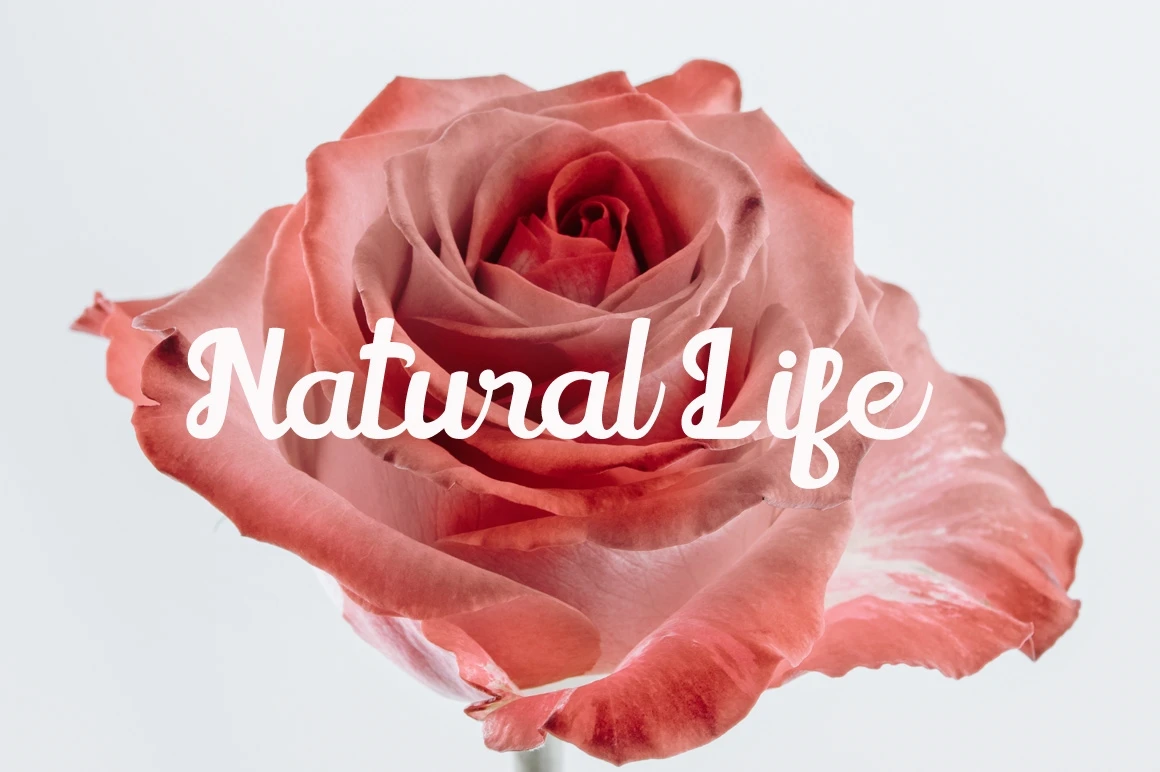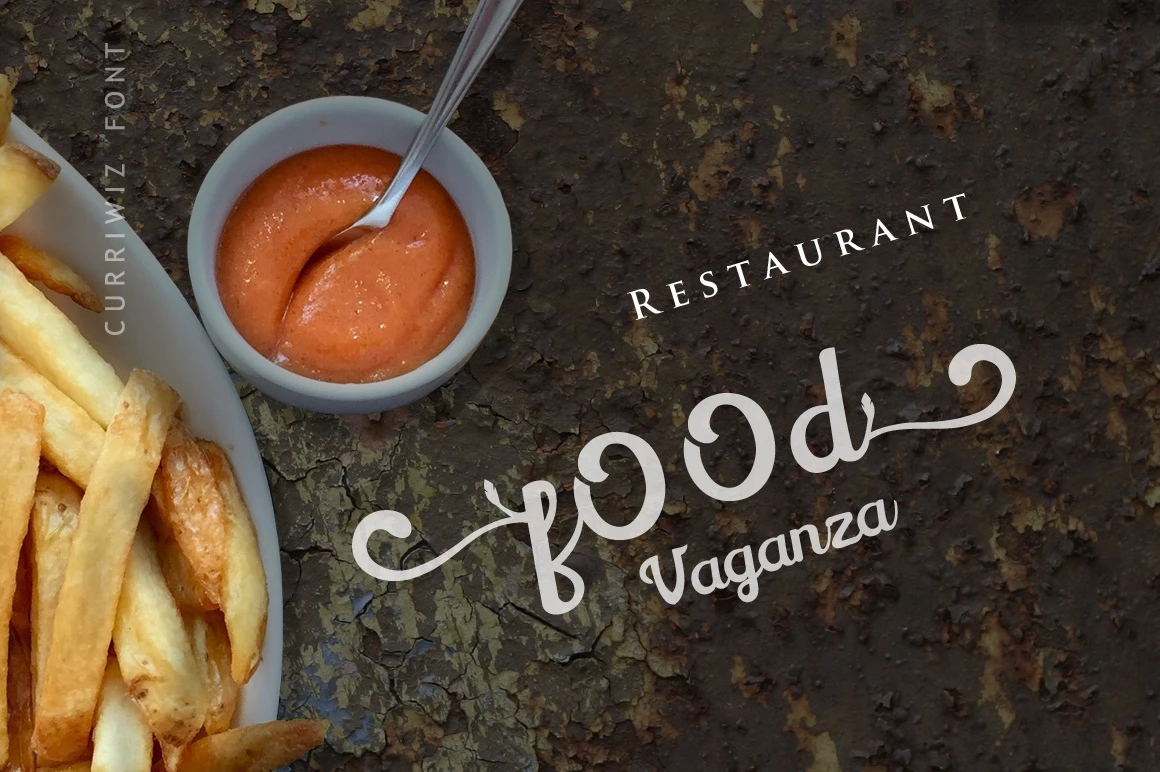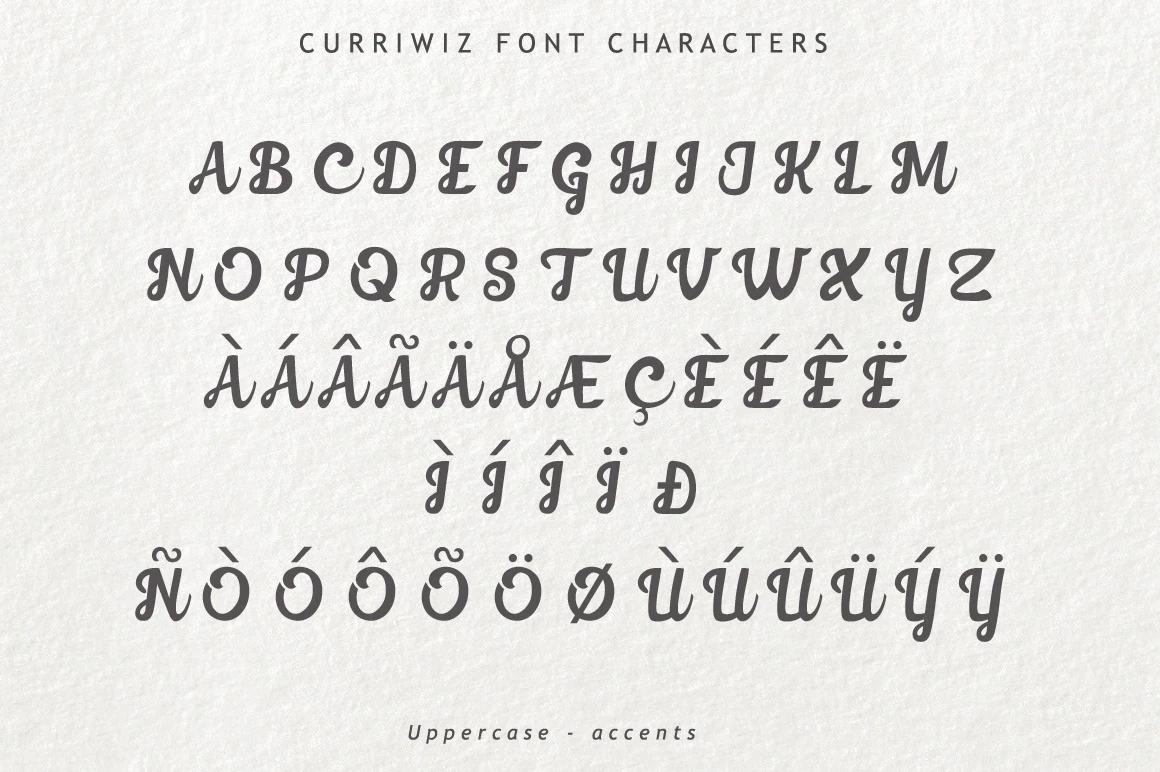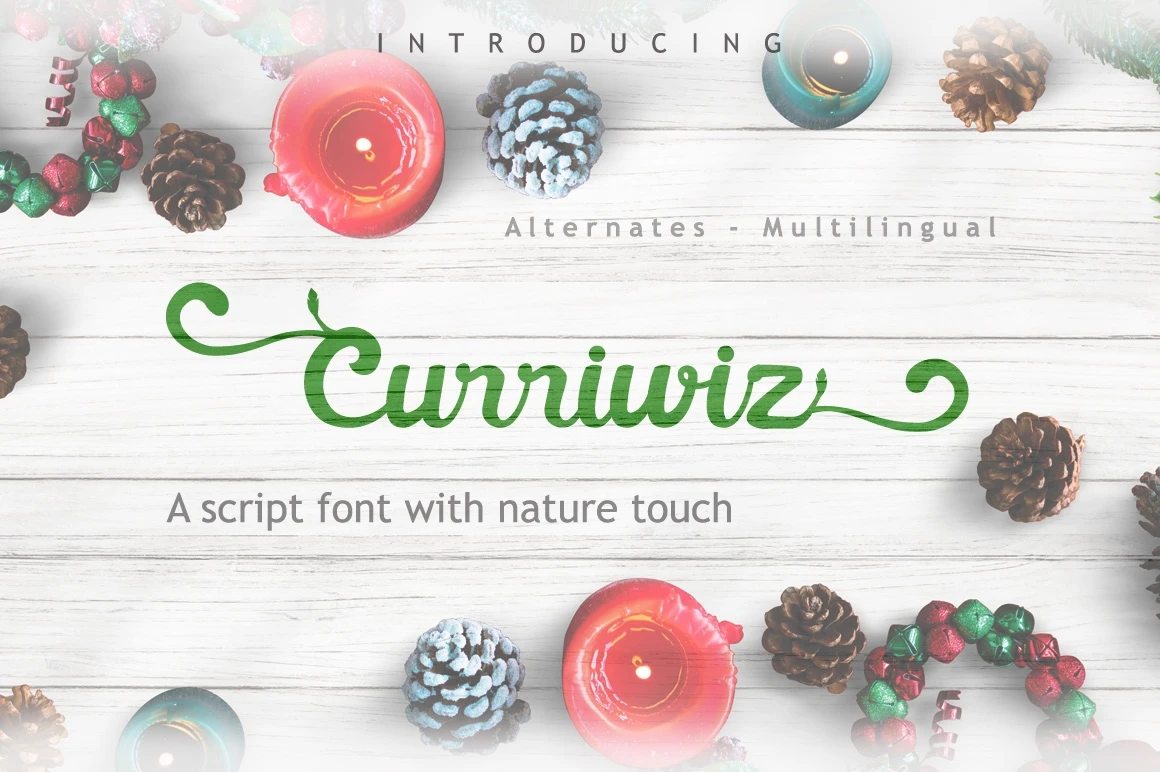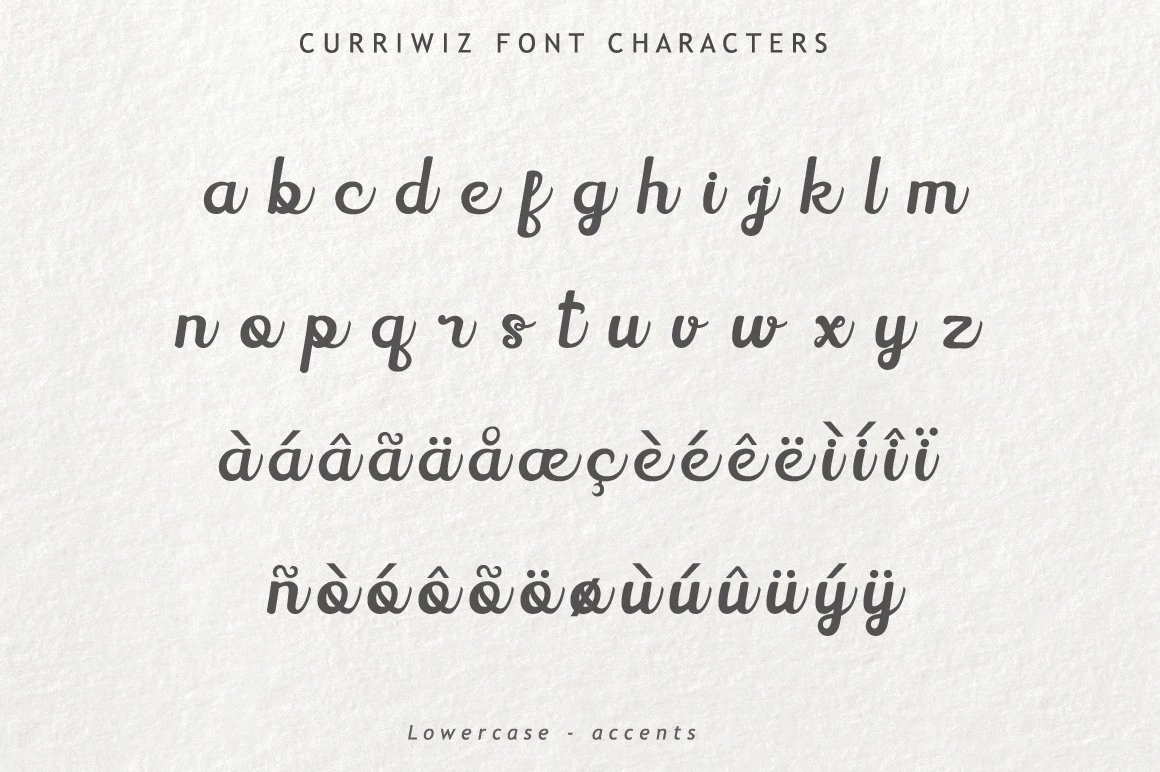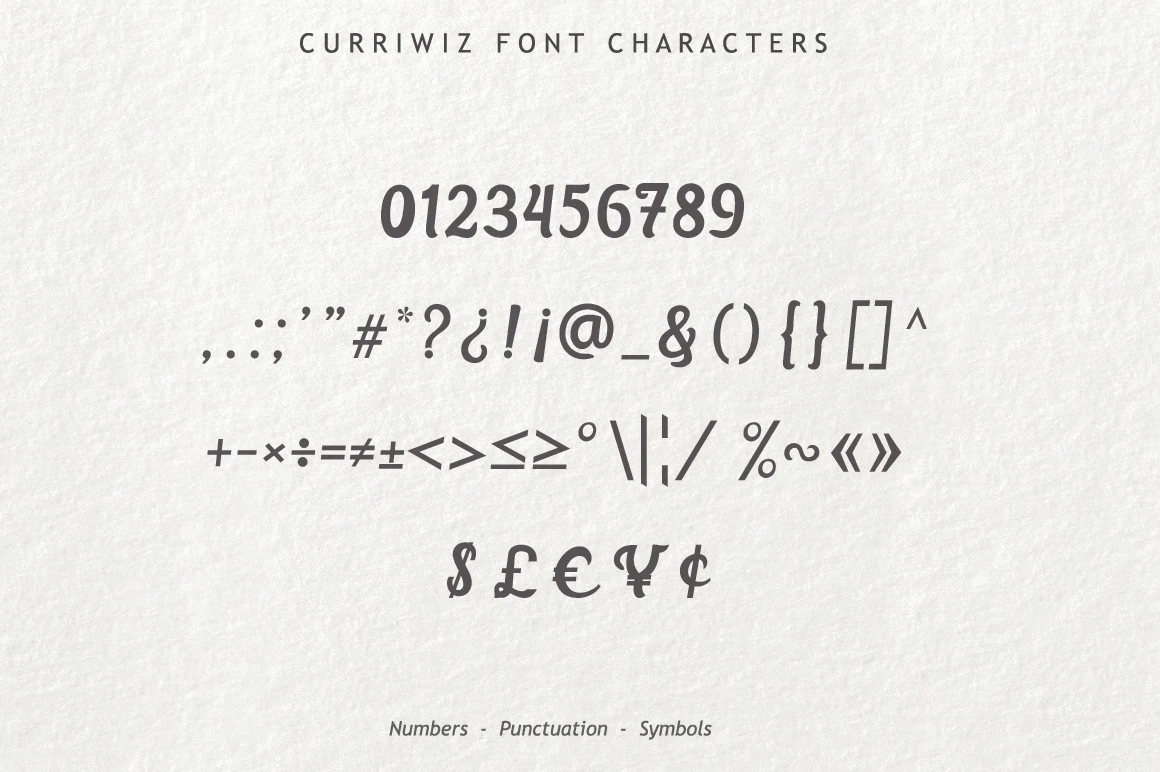
Curriwiz is a beautiful script font with nature touch design.
Perfect for logos, wedding invites, branding, quotes, product packaging, headers, and more.
Features :
- Uppercase A-Z
- Lowercase a-z
- Numbers 0-9
- Accents
- Punctuation
- Uppercase Alternates
- Lowercase Alternates
- Multilingual support